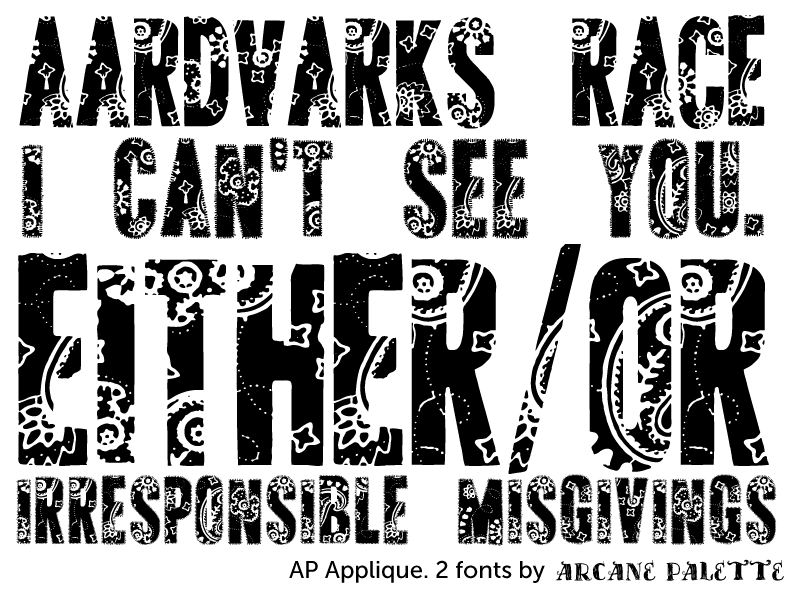
Font name: | AP Applique |
Author: | Arcane Palette Creative Design |
Note by Arcane Palette Creative Design | |
A display font with caps-only. Simplified for easy font embedding in web pages. May be used with @font-face, Cufon or sIFR if credit is given in the source code. Commercial licenses available upon request. |